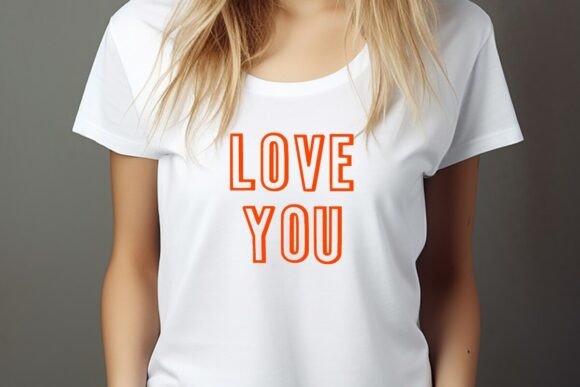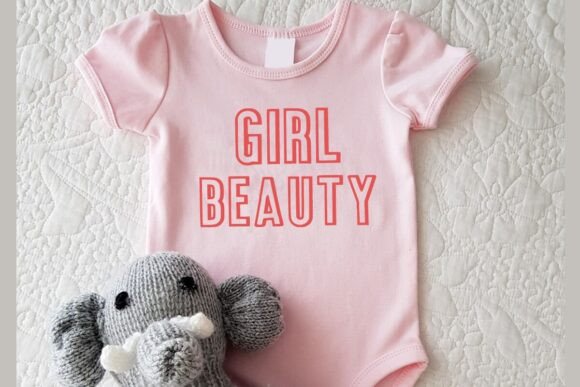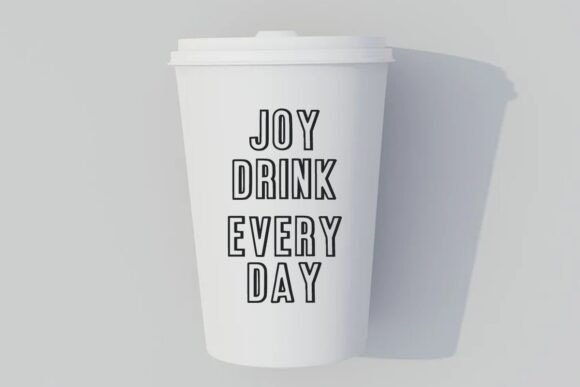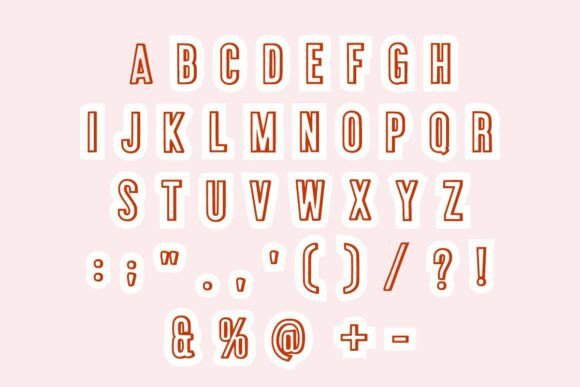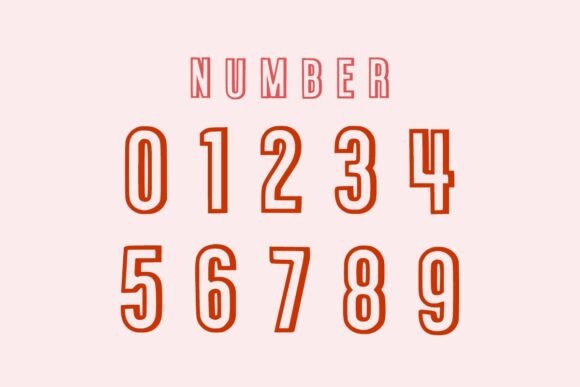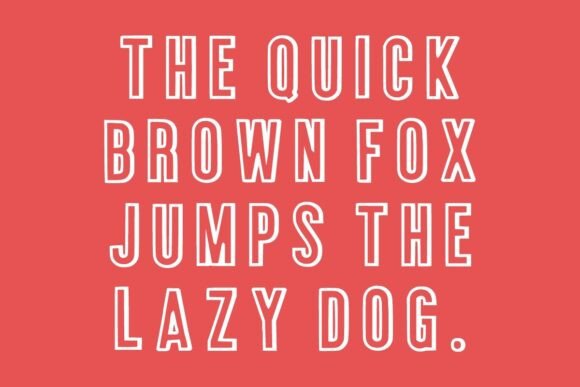
Introduction to Perfect Shadow Font
Have you ever stared at a blank page, waiting for inspiration to strike, only to have it hit you in the form of a perfectly designed font? That’s exactly what happened to me when I discovered the Perfect Shadow Font. Its clean lines, smooth curves, and adaptable nature made it the perfect addition to my next creative project.
As a designer, I know how valuable a high-quality design resource can be. A good font can make or break a project, and with the Perfect Shadow Font, I knew I had found something special. Not only is it free to download, but it’s also incredibly versatile, making it perfect for everything from digital design to crafting and greeting cards.
Whether you’re working on a digital presentation or creating a handmade card, the Perfect Shadow Font is sure to elevate your project with its friendly, approachable vibe. With a transparent background, you can easily use it on a variety of backgrounds, making it a true design treasure trove.
Key Features of Perfect Shadow Font
- Unique, stylish design with a perfect shadow effect for added depth
- Perfect for use in graphic design, web design, and digital art
Honest Review: Perfect Shadow Font
I recently had the chance to work with the Perfect Shadow Font, and I must say it’s been a game-changer for my creative project. This high-quality font has a transparent background, making it perfect for designing visually appealing graphics and visual effects.
What works well with the Perfect Shadow Font is its versatility. It’s available for a free download, making it an excellent design resource for designers of all levels. The font is also incredibly easy to use, and it looks stunning when used in combination with other design elements. ✨
However, I do have to mention a few limitations. The font only comes in a single style, which may limit its use in certain design situations. Additionally, the free version may contain some watermarks, which could be distracting in certain contexts. ⚠️
Overall, I’m extremely impressed with the Perfect Shadow Font. Its high-quality design and versatility make it a must-have for any designer working on a creative project. I highly recommend giving it a try, even if it’s just for a free download to see what it can do for your next design project.
The Perfect Shadow Font is a high-quality design resource that can elevate your creative project with a professional touch. This versatile font is available for free download and features a transparent background, making it easy to use in various design applications.
Tips for Getting the Most Out of Perfect Shadow Font
Here are some tips for getting the most out of the Perfect Shadow Font: use it in combination with other design elements, such as images and graphics, to create a visually appealing design. Experiment with different font sizes and colors to create a unique effect. Use the font on a transparent background to create a seamless design.
The Perfect Shadow Font is suitable for a wide range of design projects, including: business cards, brochures, flyers, and social media graphics. It is also perfect for creating a professional logo or branding material. With its high-quality design and transparent background, the Perfect Shadow Font is a valuable addition to any designer’s toolkit.
Q: Does the Perfect Shadow Font have a transparent background?
Yes, the Perfect Shadow Font has a transparent background, making it easy to layer over other design elements. This feature allows for seamless integration into your design, giving you more creative control and flexibility.